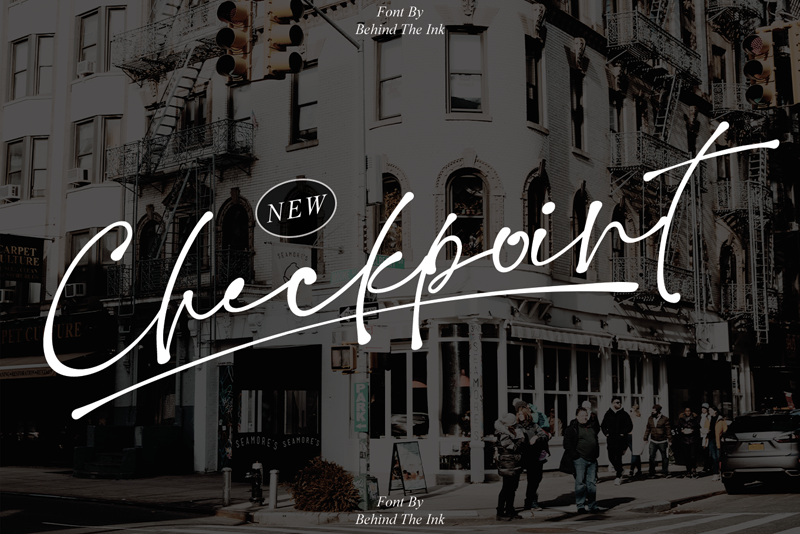
Font name: | Checkpoint |
Author: | Behind the Ink |
Note by Behind the Ink | |
Checkpoint feels equally sophisticated and asymmetrical. It looks stunning on wedding invitations, thank you cards, quotes, greeting cards, logos, business cards, and every other design which needs a customized touch. Attention : Checkpoint handwriting Font is prohibited to use this font for commercial purposes or for profit without the permission of the author/admin, without being known to use this font without permission, will be subject to sanctions 5x the specified price. This font is used only for demos (Demo license) If you want to use this font for commercial use please contact email: luluksurotul123@gmail.com or click the link below: https://www.creativefabrica.com/product/checkpoint-4/ref/698281/ If you want to see more other fonts, please click: https://www.creativefabrica.com/designer/behind-the-ink/ref/698281/ Any donations are very appreciated. Paypal account for donation: https://www.paypal.com/paypalme/luluk783 thanks. |